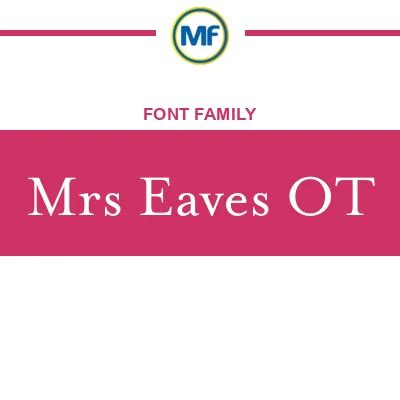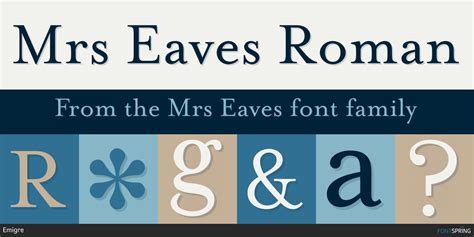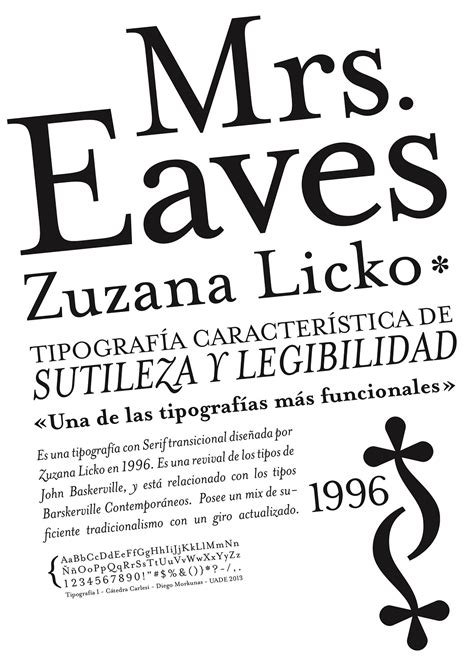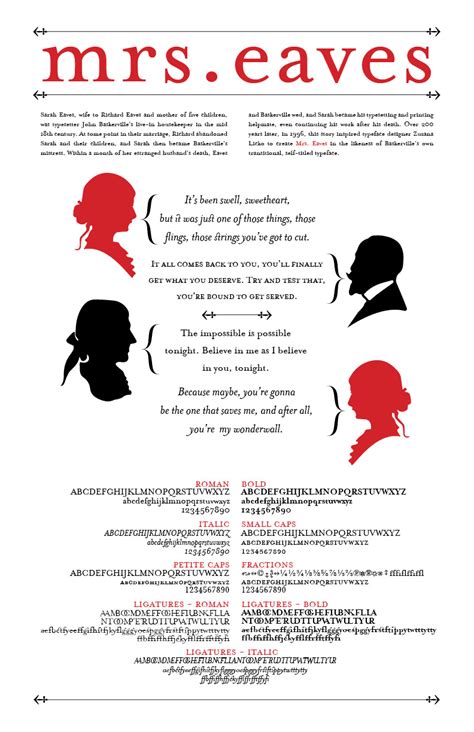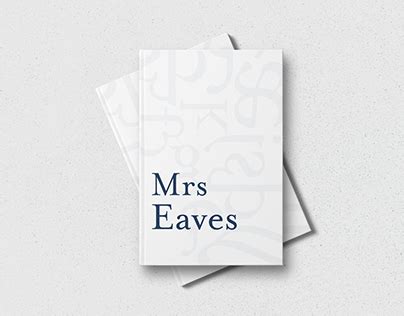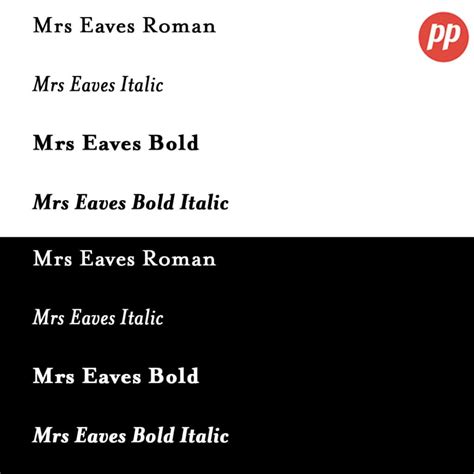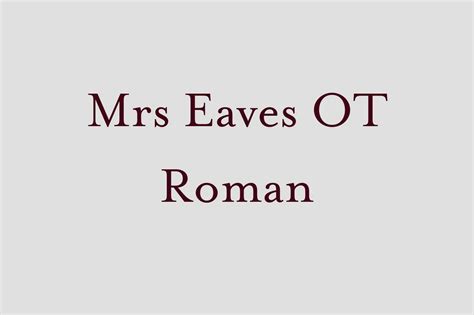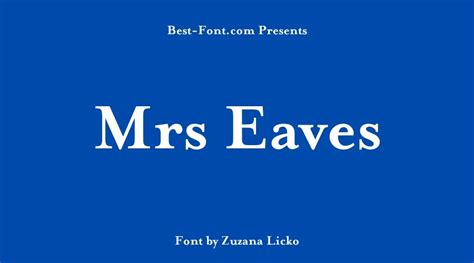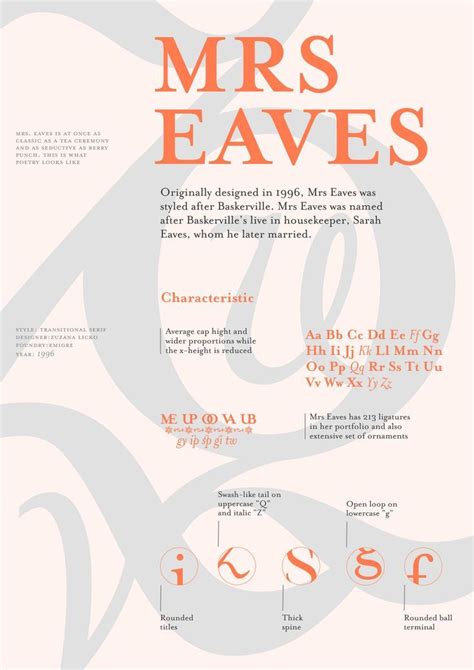
The Mrs Eaves font is a distinctive and versatile typefaces designed by David Carson and Mike Parker. It is named after the wife of Carson, who was a key inspiration for the font's creation. Mrs Eaves is known for its elegant and modern aesthetic, with a unique blend of traditional and contemporary elements, making it a popular choice for various design projects.
MRS EAVES FONT